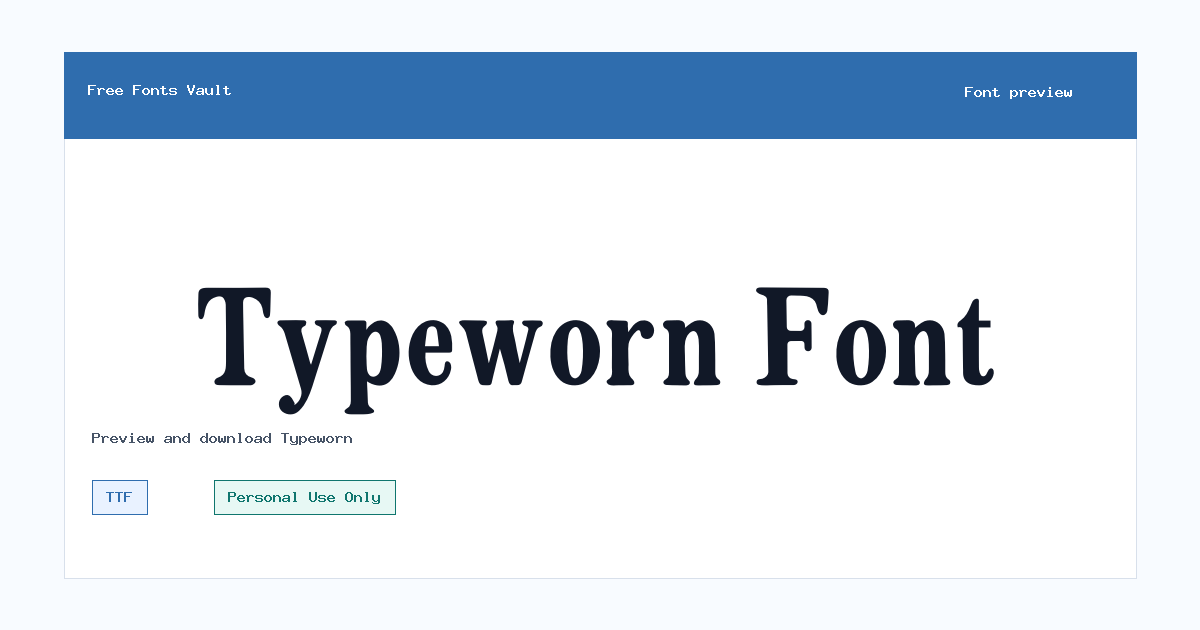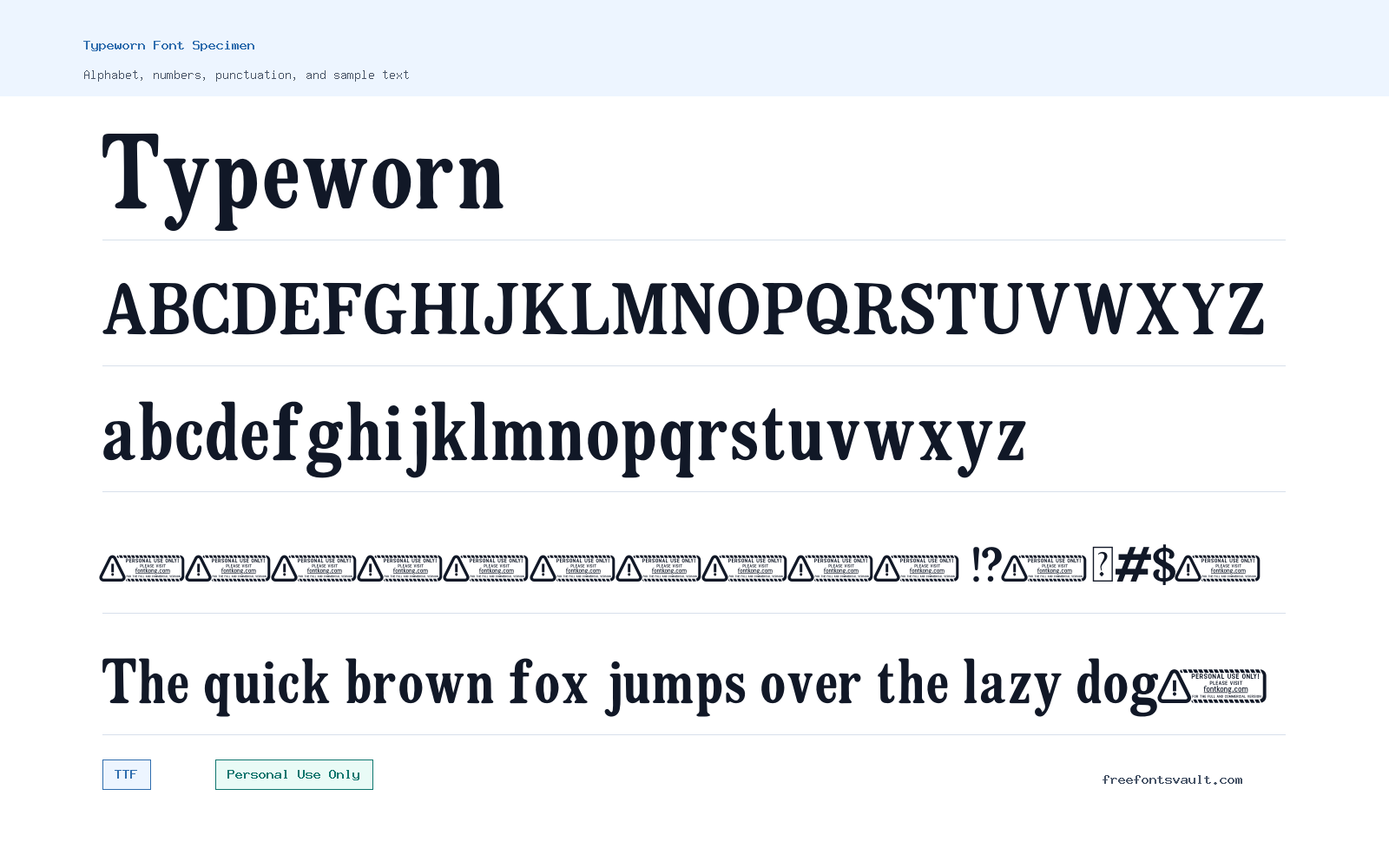
Typeworn
Typeworn font preview showing the family name
Typeworn Font
Typeworn font specimen showing alphabet, numbers, and sample text
Typeworn is a serif font by Kong Font with a worn, vintage-leaning look and a regular TTF file for personal projects. It is best approached as a display face: try it in the preview for titles, poster text, logo concepts, headers, and short branded phrases rather than long reading passages.
About Typeworn
Typeworn works around a classic serif structure with a weathered finish, giving letters the feel of printed type that has picked up texture over time. The style is useful when you want a headline to feel established, editorial, or a little aged without moving into a rough grunge font. The official Font Kong page describes it as a modern classy serif and points it toward quotations, design titles, blog headers, art excerpts, typography, posters, business cards, and branding work. Other font listings also place it in serif and vintage-style categories, which matches the worn-print impression suggested by the name.
Because the design has a distinct surface character, Typeworn is strongest in short text. Use it for a book-cover title, packaging concept, event poster, social graphic, personal logo draft, or website hero mockup where the letters have room to show their texture. It may lose comfort in dense paragraphs, small UI labels, or body copy, especially if the preview size makes the worn details blur together. For web mockups, test it at the exact heading sizes you plan to use and check both desktop and mobile views. If you are using it for a logo, product label, client presentation, advertisement, monetized website, or any business identity, treat the personal-use license as a hard limit and get the correct commercial license first.
• Weathered serif display style suited to short headlines, titles, poster text, and vintage-leaning compositions.
• Best used at medium to large sizes where the worn character remains visible and readable.
• Poster titles and event graphics that need a classic serif with texture
• Personal logo concepts, monograms, labels, and packaging mockups
• Book covers, editorial headlines, quotation graphics, and blog headers
• Website hero text and social media graphics where the font is used sparingly
• Mood boards and brand direction studies for vintage, heritage, or editorial styling
Set Typeworn large enough for the texture to breathe. Pair it with a quiet sans serif for body text, captions, menus, and supporting details so the layout does not become too heavy. Good pairing directions include a clean grotesk, a neutral humanist sans, or a simple book-style serif used only for body copy. Avoid combining it with another distressed or decorative font unless the design is intentionally rough; two textured display faces can compete quickly. For logo work, test the name in black and white, at small sizes, and on light and dark backgrounds before committing. For posters and web headers, increase tracking slightly if the words feel tight, and keep line breaks short so the serif shapes stay clear.
What kind of font is Typeworn?
Typeworn is a serif display font with a worn, vintage-style texture. It is better for titles and short phrases than long paragraphs.
Is Typeworn good for body text?
It is not the best choice for long body text. Use it for headings, covers, labels, and display settings, then pair it with a simpler font for paragraphs.
What should I pair with Typeworn?
Pair it with a clean sans serif or a plain text serif. Keep the supporting font simple so Typeworn can carry the visual personality in headings.